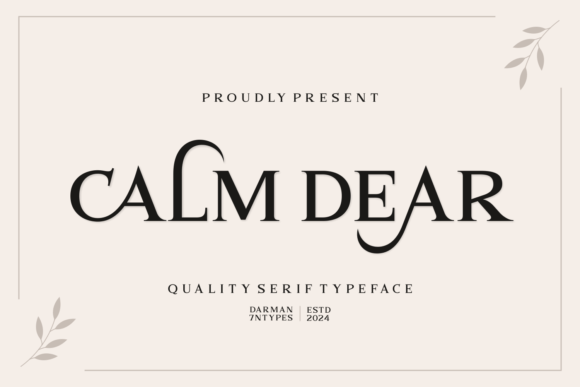
Calm Dear Font: Elevate Your Designs with Elegance and Beauty
Are you looking for a luxurious and stylish serif font that exudes elegance and beauty? Look no further than Calm Dear Font. This stunning font is perfect for all your wedding lettering requirements, popular calligraphy needs, and a wide range of design projects. With its smooth, clean, and modern aesthetic, Calm Dear Font is sure to elevate your designs and leave a lasting impression.
Key Features of Calm Dear Font
- Luxurious and Stylish: Calm Dear Font boasts a sophisticated and elegant design, perfect for high-end branding, wedding stationery, and luxury packaging.
- Serif Font: With its classic serif design, Calm Dear Font adds a touch of tradition and sophistication to your designs.
- Elegant and Beautiful: The font’s elegant lines, curves, and swashes make it perfect for designs that require a touch of beauty and refinement.
- Smooth, Clean, and Modern: Calm Dear Font’s smooth, clean lines, and modern aesthetic make it versatile and easy to use.
- Perfect for Wedding Lettering: The font’s elegant design makes it perfect for wedding invitations, stationery, and other wedding-related designs.
- Calligraphy Needs: Calm Dear Font’s stylish and elegant design makes it suitable for a wide range of calligraphy needs, from formal events to everyday designs.
Design Applications for Calm Dear Font
Calm Dear Font is an incredibly versatile font that can be used in a wide range of design applications. Here are some ideas to get you started:
- Poster Mock-ups: Add a touch of elegance and sophistication to your poster designs with Calm Dear Font.
- Label Designs: Use Calm Dear Font to create beautiful and stylish labels for products, packaging, or events.
- Logo Design: Create an impressive logo for your brand or business with Calm Dear Font’s elegant and sophisticated design.
- Greeting Cards: Elevate your greeting cards, covers, and branded cards with Calm Dear Font’s luxurious and stylish design.
Tips and Tricks for Using Calm Dear Font
Here are some tips and tricks to help you get the most out of Calm Dear Font:
- Pair with Other Fonts: Experiment with pairing Calm Dear Font with other fonts to create a unique and visually appealing design.
- Use Swashes: Take advantage of Calm Dear Font’s elegant swashes to add a touch of elegance and sophistication to your designs.
- Experiment with Colors: Try out different colors and color combinations to find the perfect match for your design and brand.
- Pay Attention to Kerning: Make sure to adjust the kerning to ensure that your text is evenly spaced and visually appealing.
Inspiration and Examples
Here are some inspiring examples of Calm Dear Font in action:
In conclusion, Calm Dear Font is a luxurious and stylish serif font that is perfect for designers looking to add a touch of elegance and beauty to their designs. With its smooth, clean, and modern aesthetic, Calm Dear Font is versatile and easy to use, making it suitable for a wide range of design applications. Whether you’re working on a wedding stationery design, a luxury branding project, or a simple greeting card, Calm Dear Font is sure to elevate your designs and leave a lasting impression.